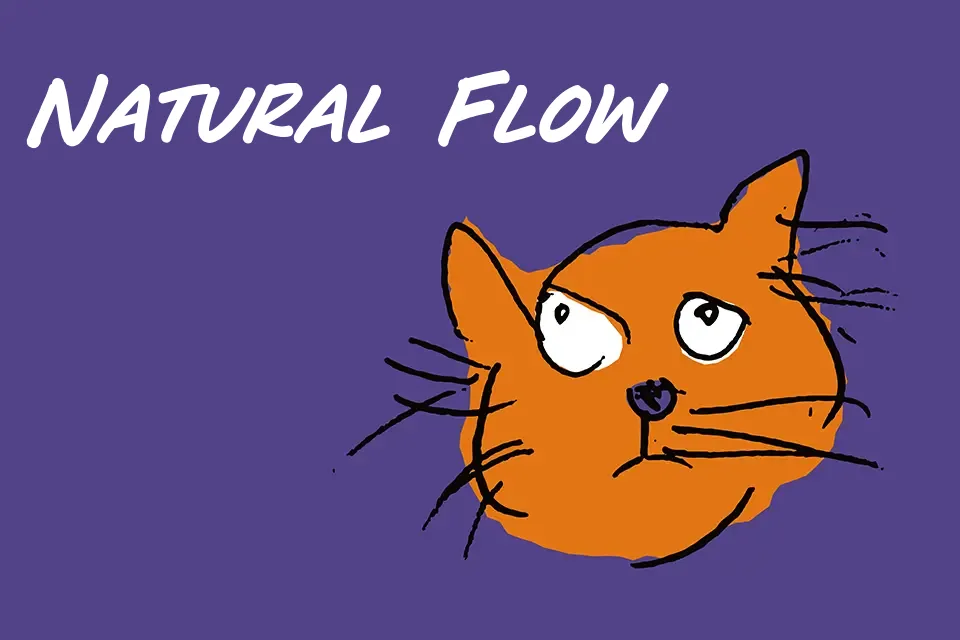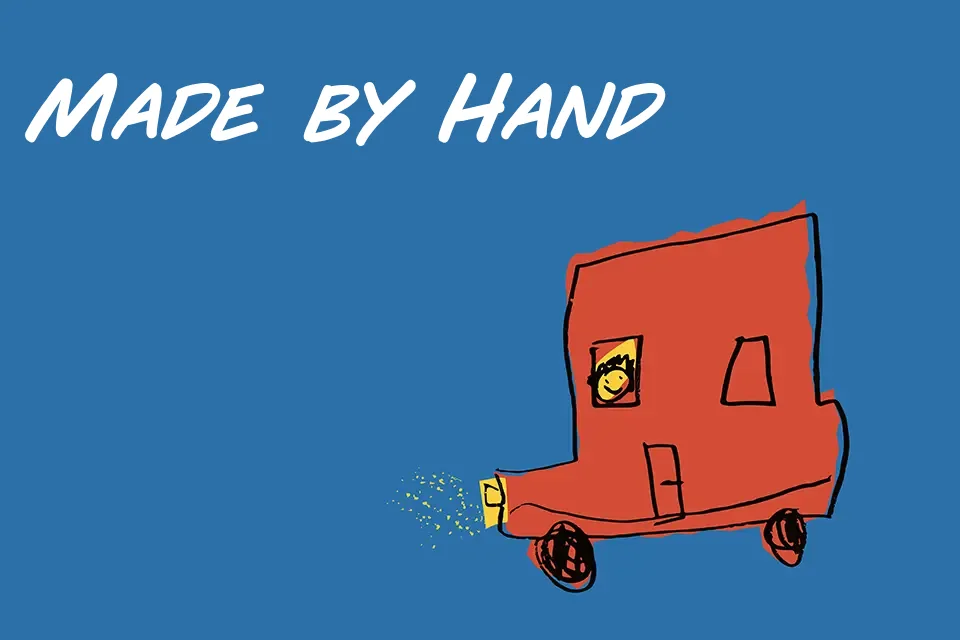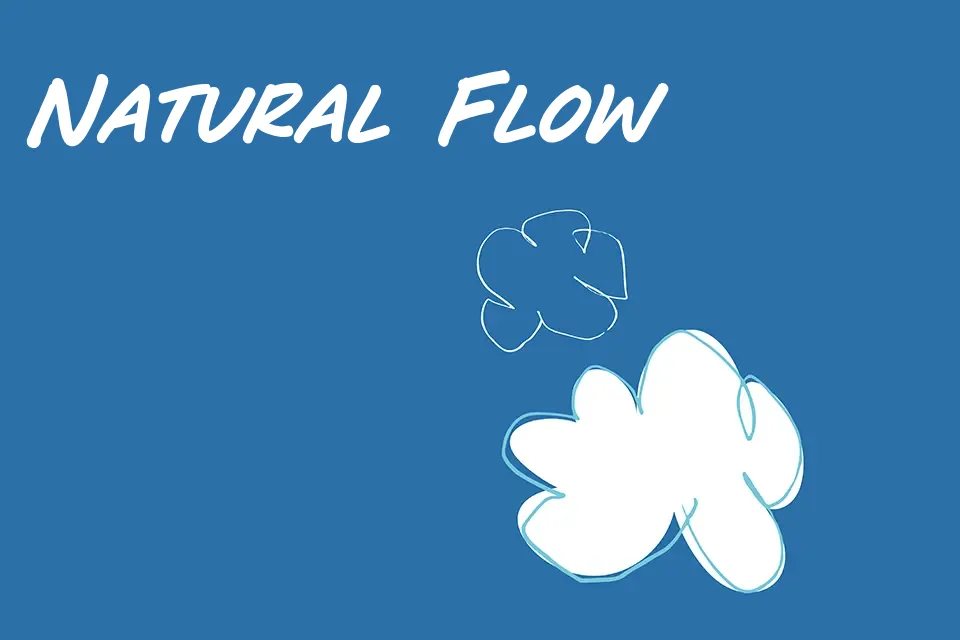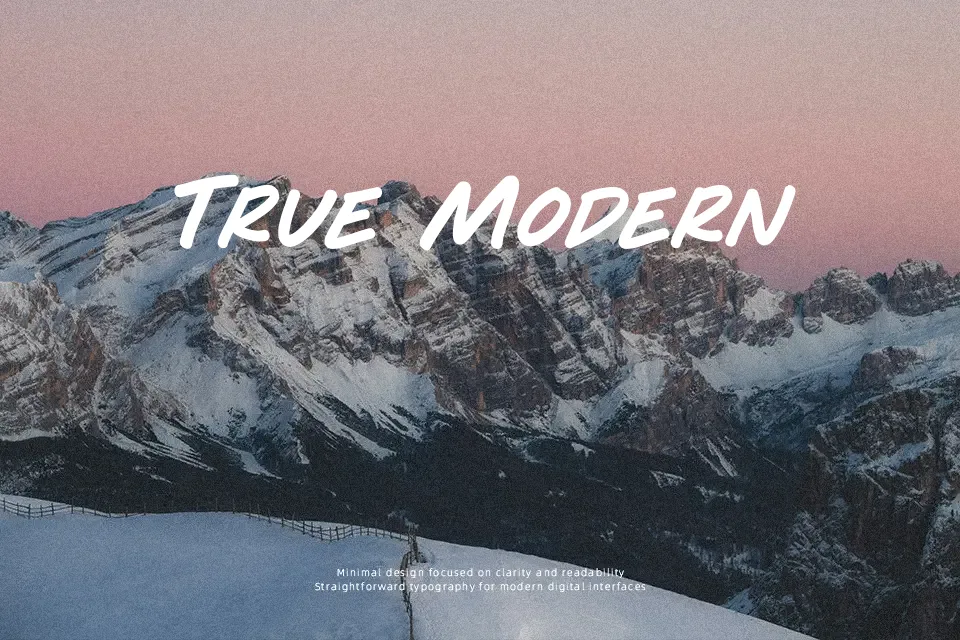
Play Time Font
Designed by BLKBK Fonts
Play Time Font works best in large, short-form display settings where its handwritten brush construction can remain clear. The letterforms use thick, marker-like strokes with uneven edges and a loose, expressive rhythm, while the proportions feel broad rather than compact. Spacing gives individual characters room to retain their shape in headlines and simple graphic layouts. It suits playful posters, packaging titles, and informal promotional artwork more naturally than restrained brand systems. The design has strong visual movement at larger sizes, but its textured stroke treatment becomes less comfortable in small copy or continuous reading.
Best For: children’s event posters,casual product packaging,social media headlines,playful apparel graphics